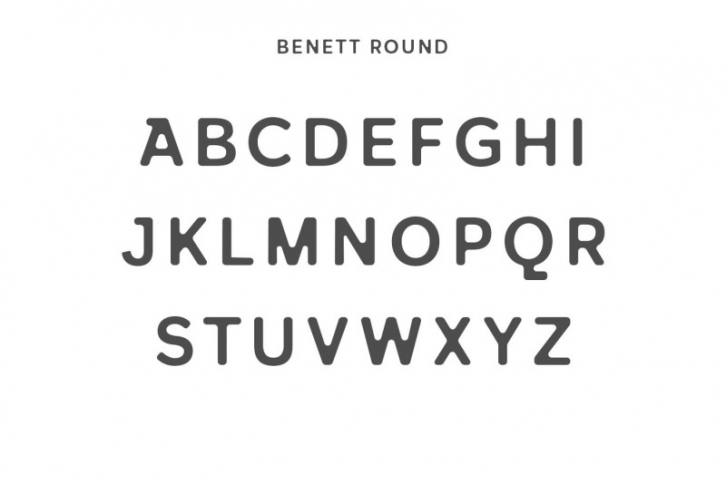
Benett is a clean bold sans font family pack that includes Regular, Round and Bold versions. It contains all basic glyphs with multilingual support. This font will be perfect for packaging, presentations, logo, headlines, lettering, posters, branding, quotes, titles, magazines headings, web layouts, advertising, invitations, packaging design, books, and nearly any creative design.
- Font Weight: Regular, Round and Bold
Benett Font Features:
- Uppercase Letters
- Lowercase Letters
- Numbers & Punctuation
- Non English Characters ( Latin Supplement + Latin Extended A)